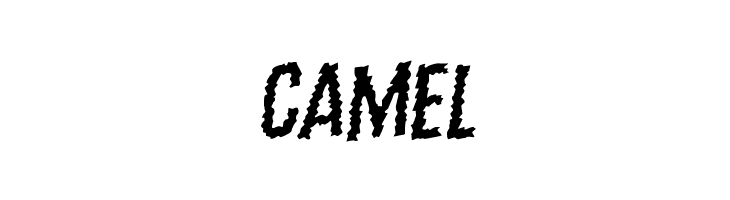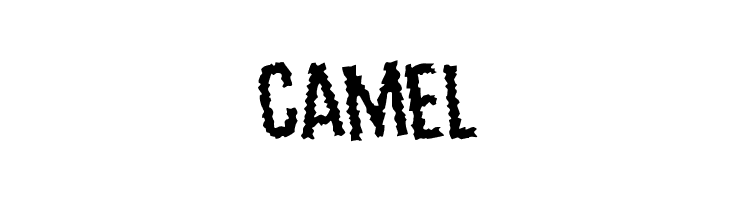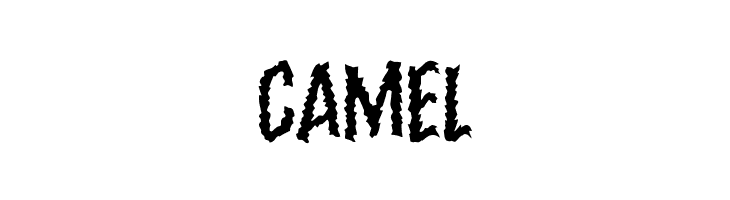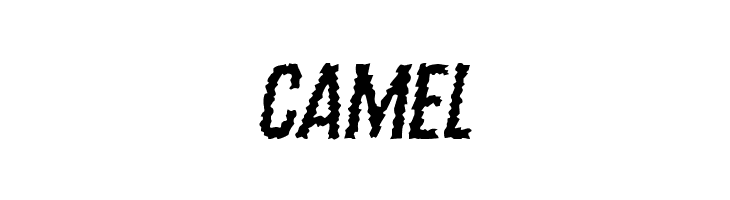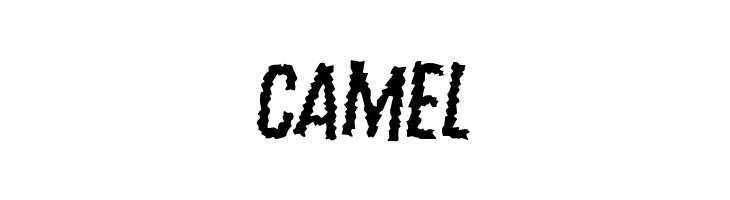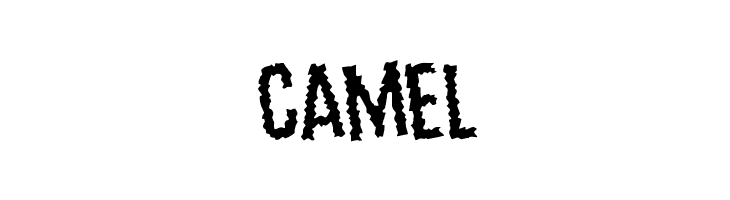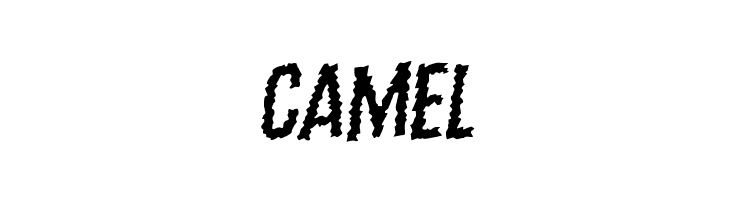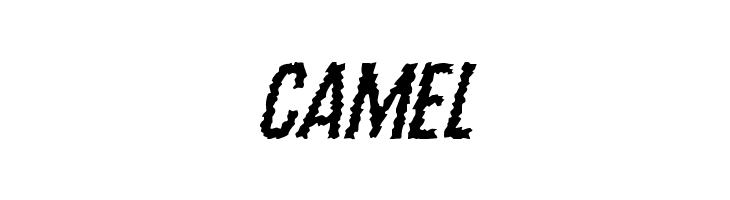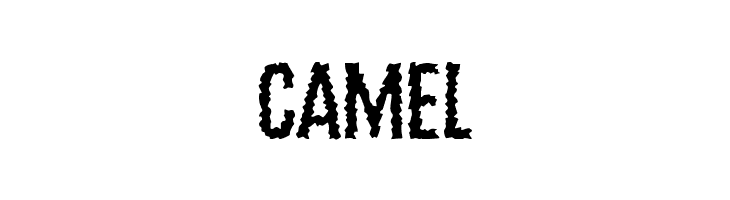
• Ampire Rotalic
A bold, jagged font with dynamic, slanted characters.
• Ampire Rotated
A jagged, bold font with a dynamic and edgy design.
• Ampire Rotated 2
A bold, jagged font with a dynamic and energetic style.
• Ampire Semi-Italic
A bold, jagged, and italicized font with a dynamic and modern style.
• Ampire Staggered
A bold, jagged font with a dynamic, zigzag pattern.
• Ampire Staggered Italic
A bold, staggered italic font with jagged edges and dynamic style.
• Ampire Staggered Rotalic
A bold, staggered font with a jagged, energetic style.
• Ampire Staggered Rotated
A bold, jagged font with a rugged, hand-cut appearance.
• Ampire Super-Italic
A bold, italic font with a jagged, energetic style.
• Ampire Warped
A bold, jagged font with a dynamic, edgy style.